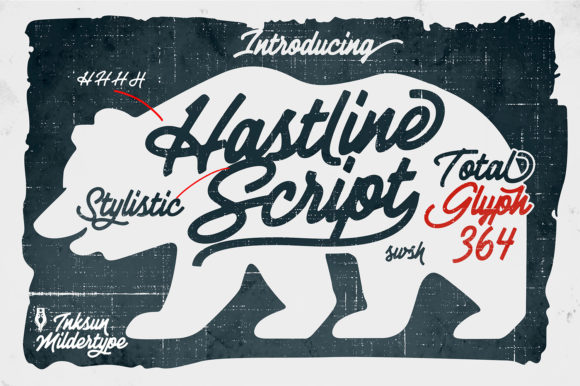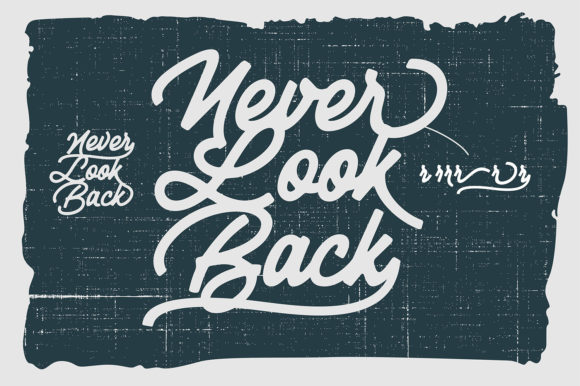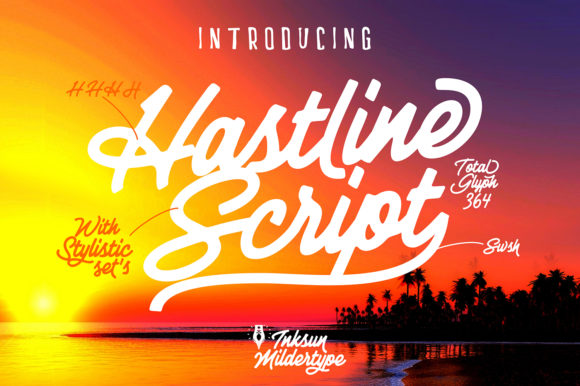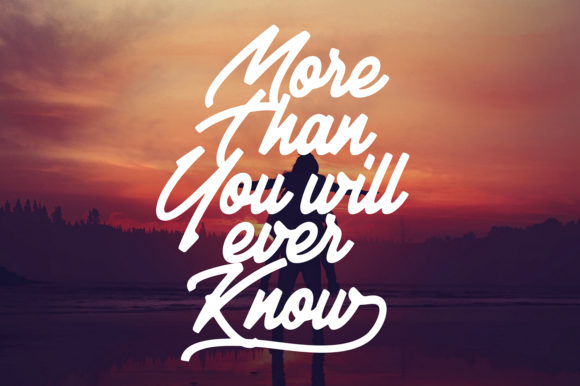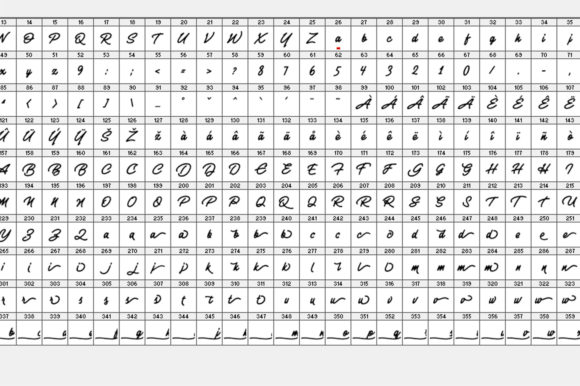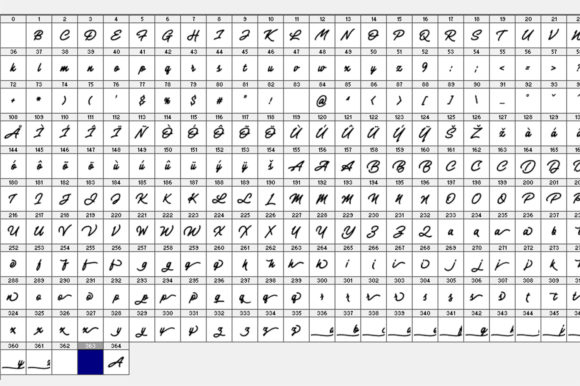
Hastline Font
Hastline is a beautiful and bold handwritten font with a timeless appeal. Get inspired by its swashes and turn any design project into a stand out.